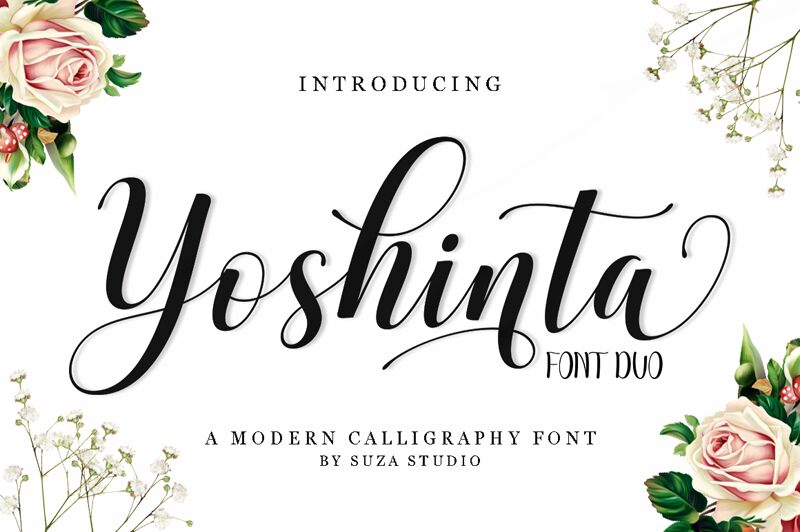
Yoshinta Sans is a beautifully crafted calligraphy font designed by Zikrillah. Its light weight adds elegance and sophistication to any project, making it perfect for wedding invitations, greeting cards, and other upscale events. This font's unique style also makes it suitable for branding materials such as logos, business cards, and websites. With its flowing curves and intricate details, Yoshinta Sans is sure to capture attention and leave a lasting impression on your audience. Distinguish yourself with this stunning font that seamlessly blends tradition with modernity.
Yoshinta Sans
Zikrillah